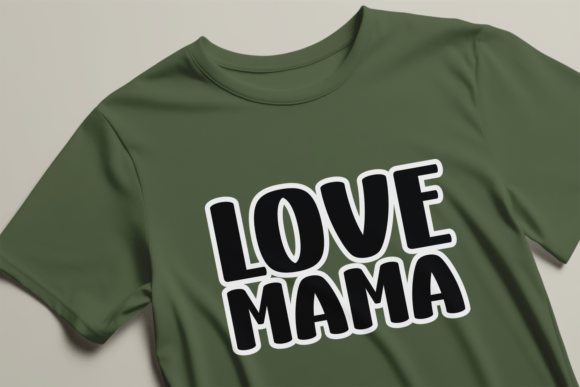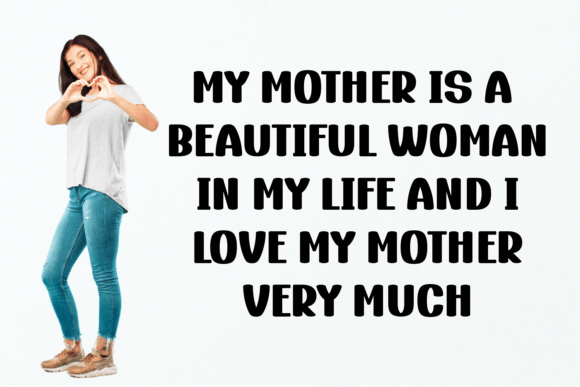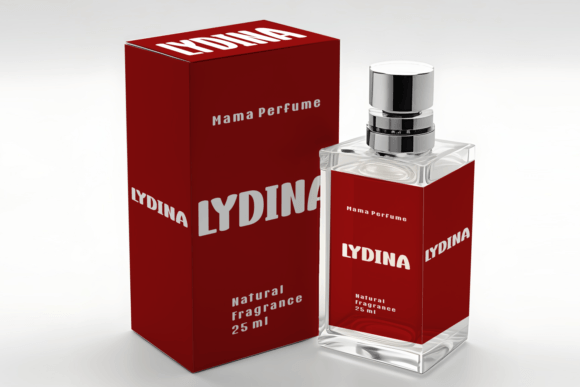
Introduction to Mother Longing Font
Unleash your playful side with this festive and unique display font creatively mimicking handwritten strokes.
The evolution of retro font breathed life into this bubbly doodle masterpiece, ideal for your charismatic and captivating designs This fun comic font, reminiscent of celebrated cartoon imagery, would add a thick and pronounced character to your work, akin to a sticker or quote font.